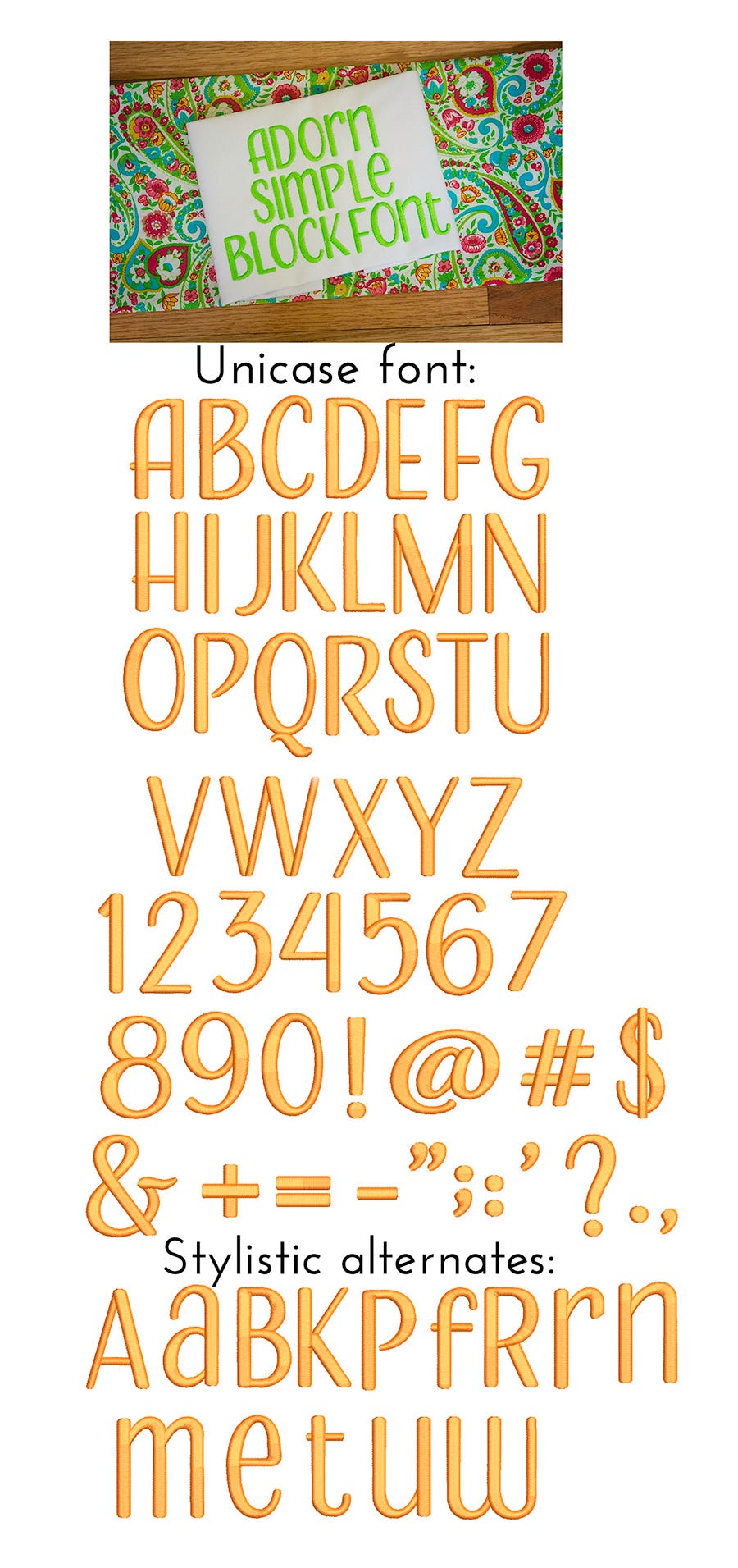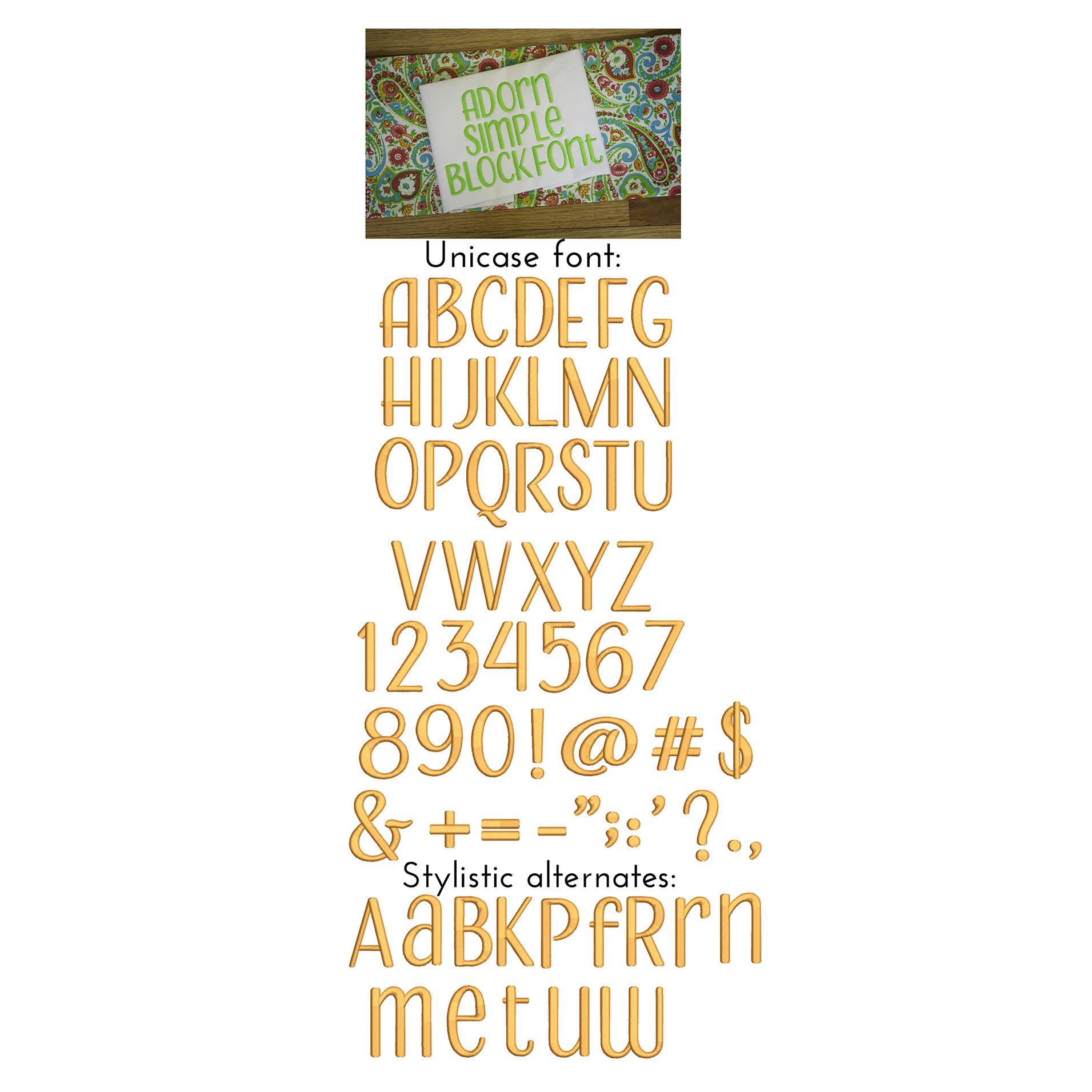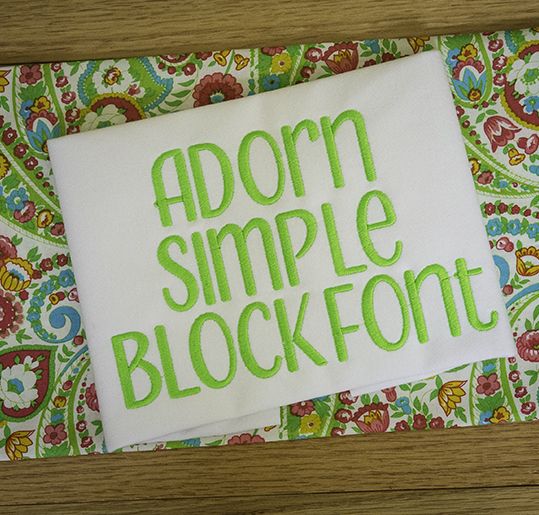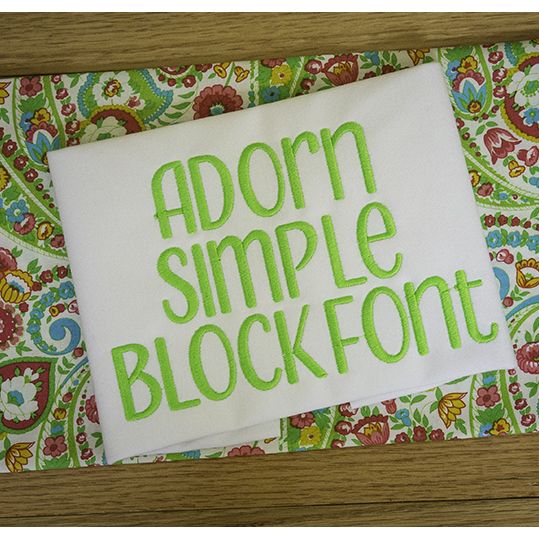
Here is a wonderfully simple and elegant unicase font. Some of the letters have stylistic alternates which are shown in the image. All of our fonts are 100% manually digitized to ensure the highest quality.